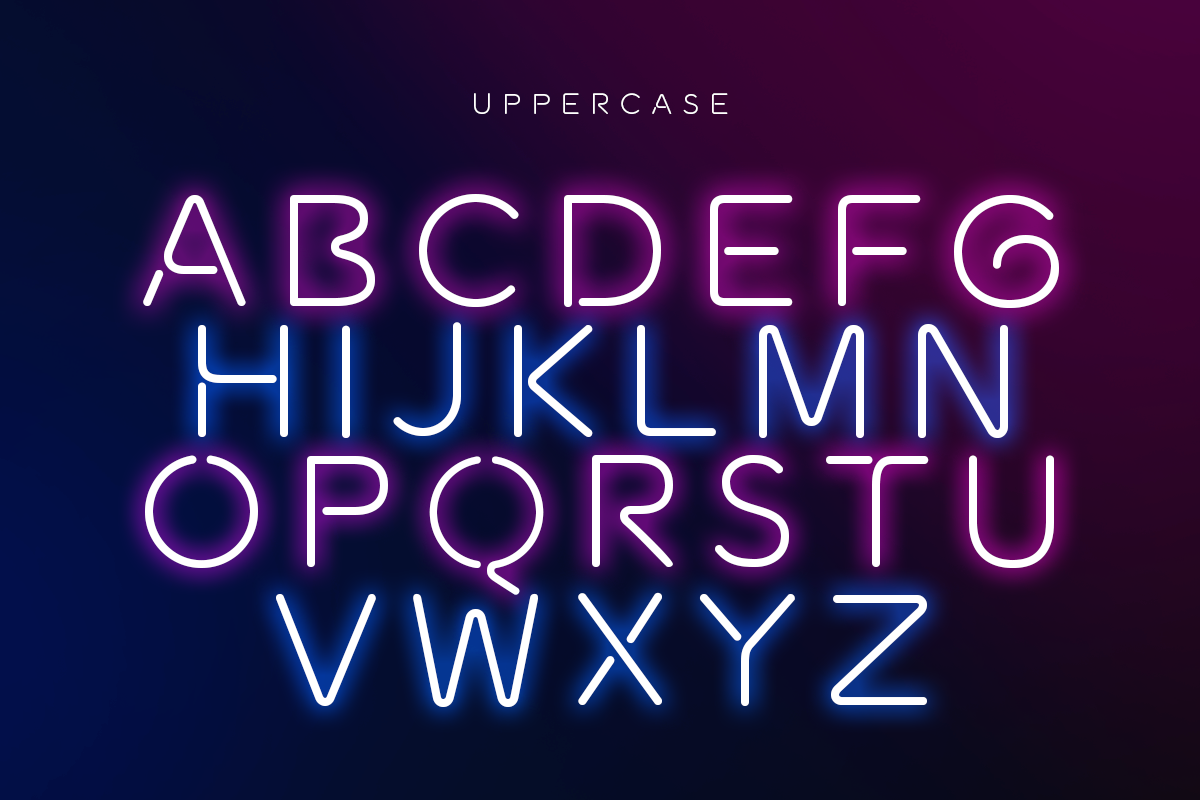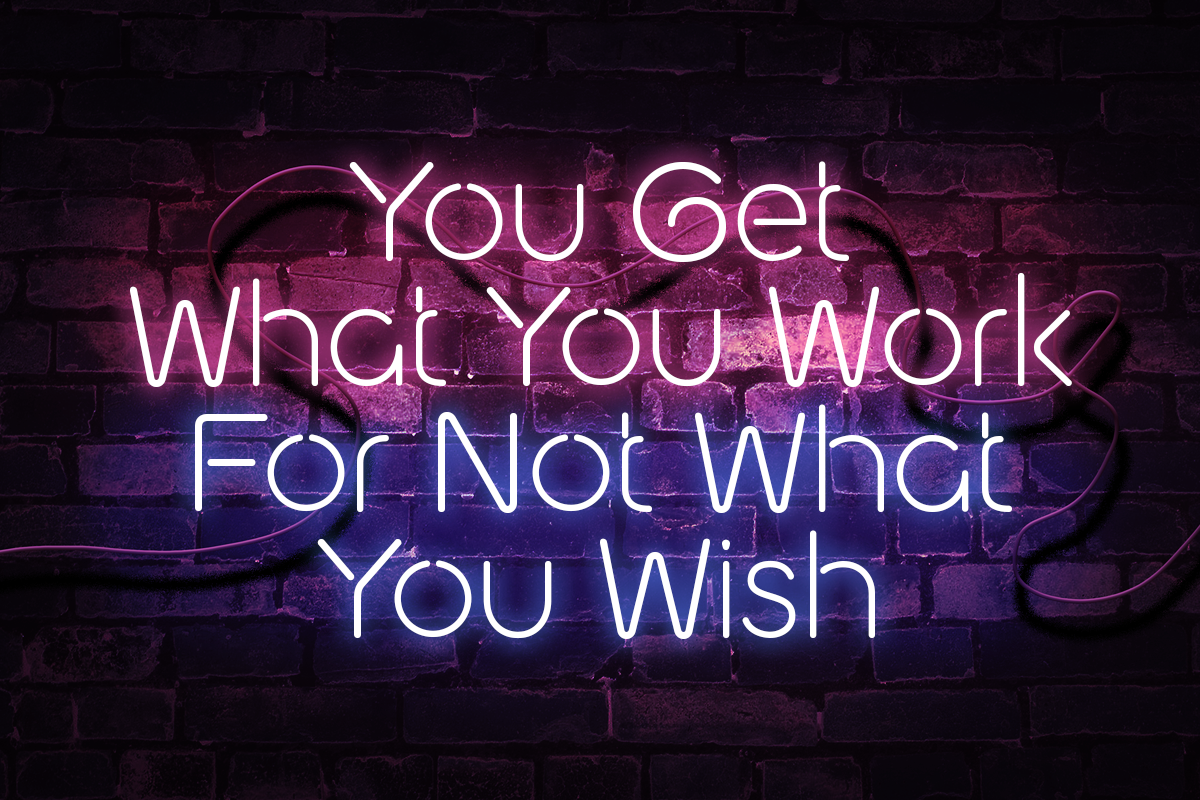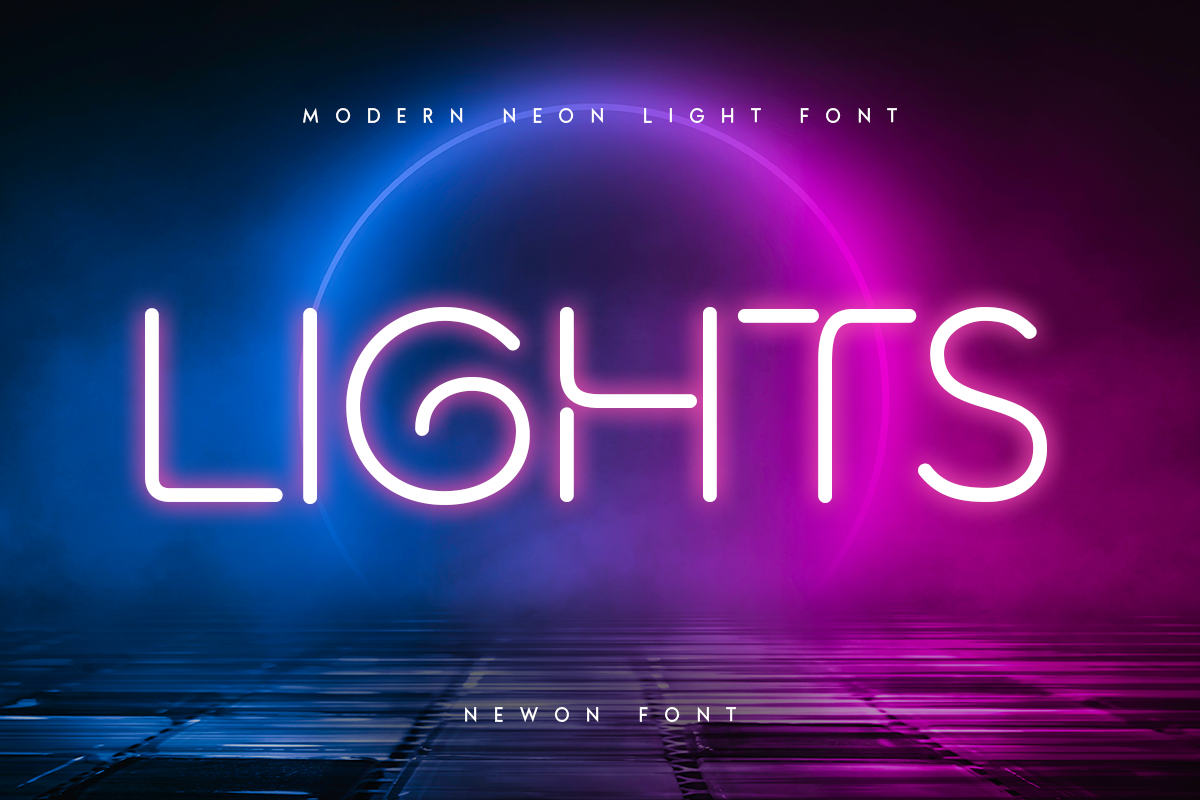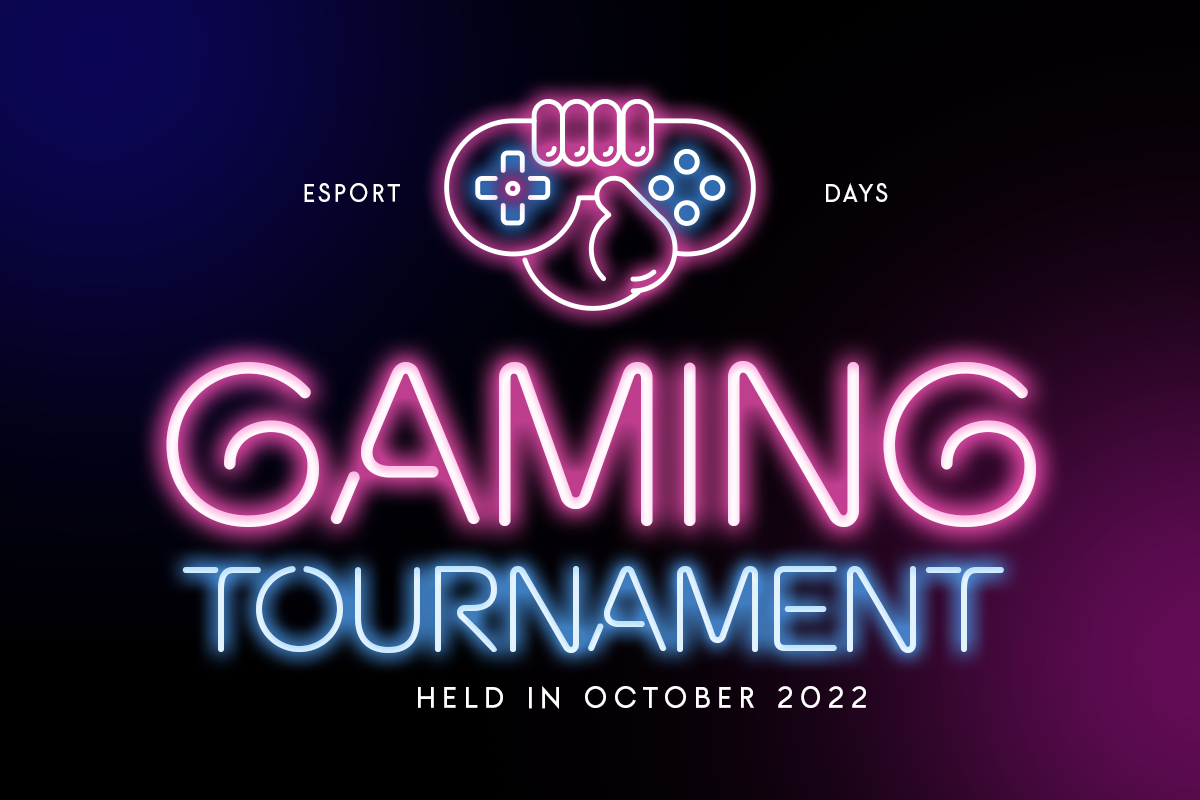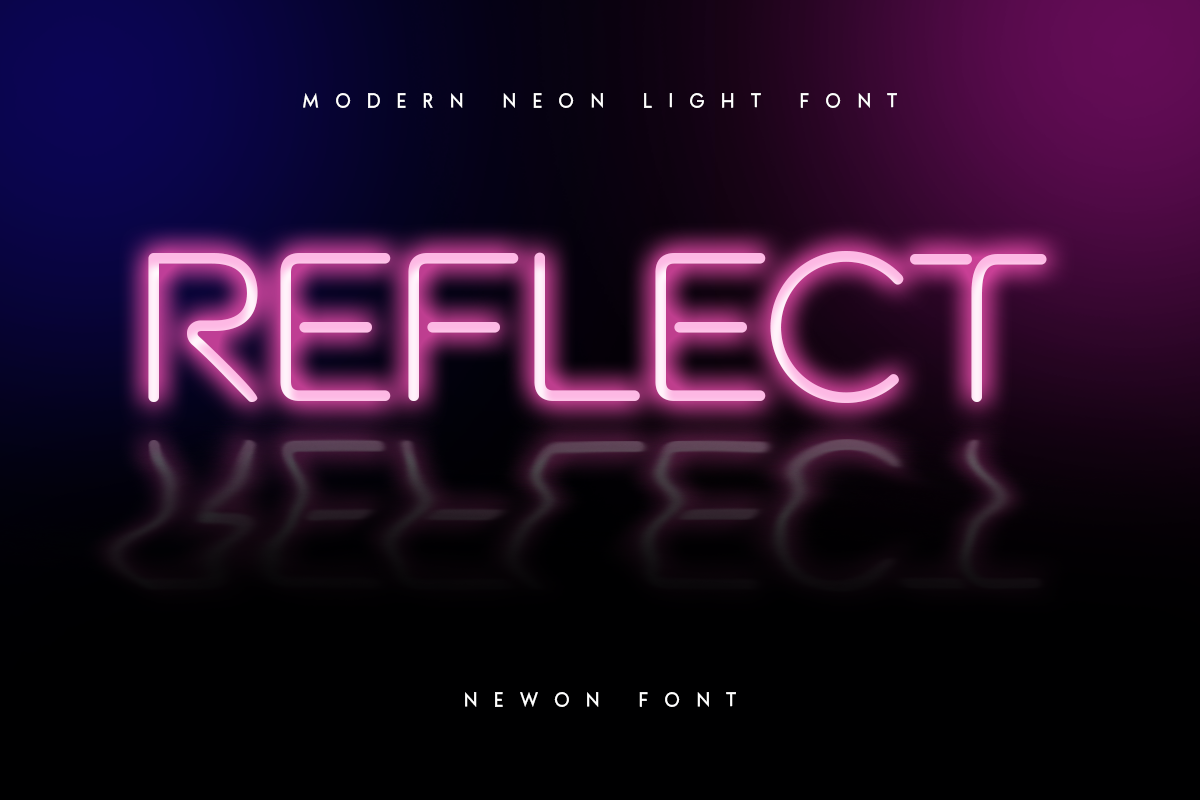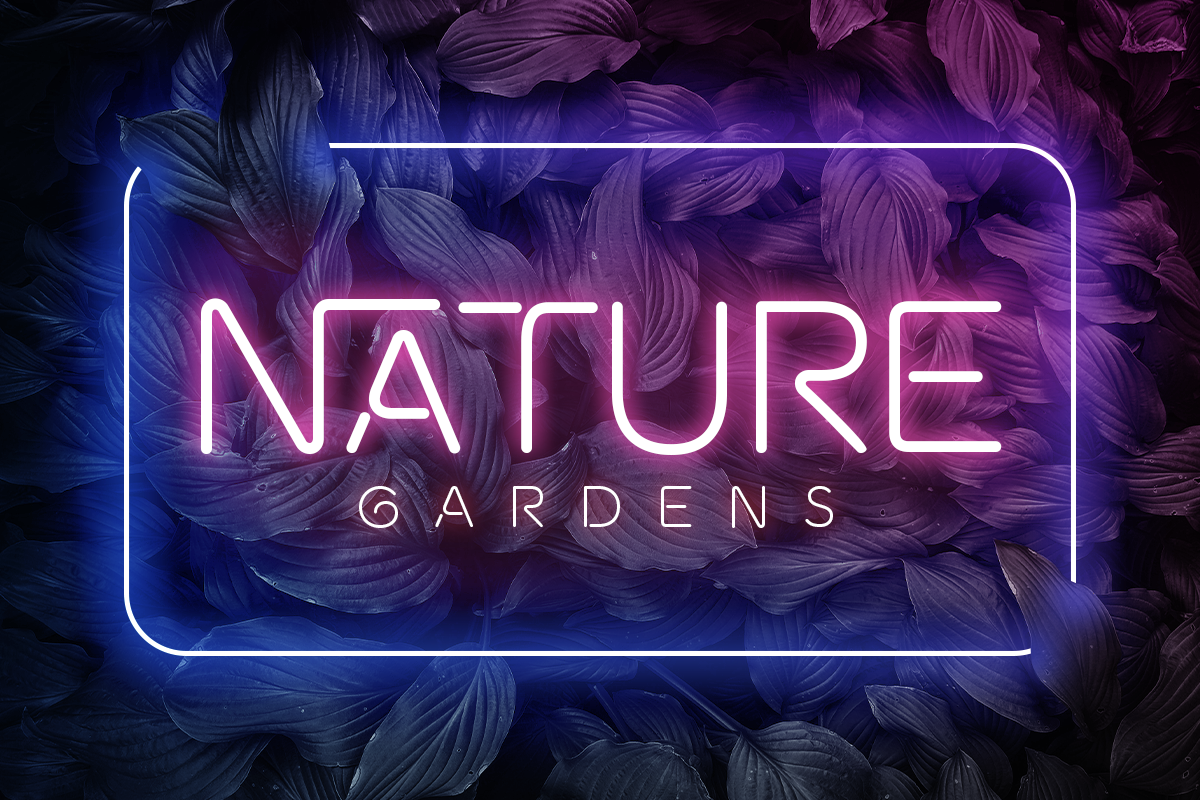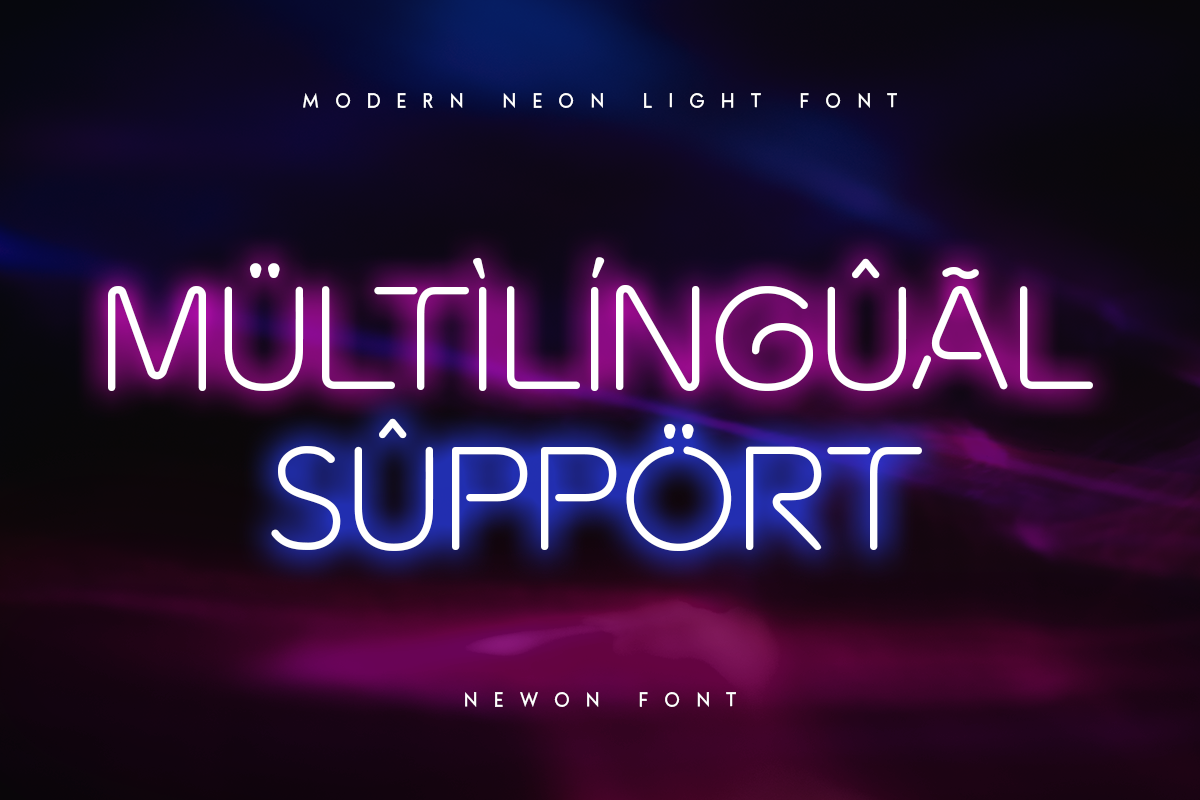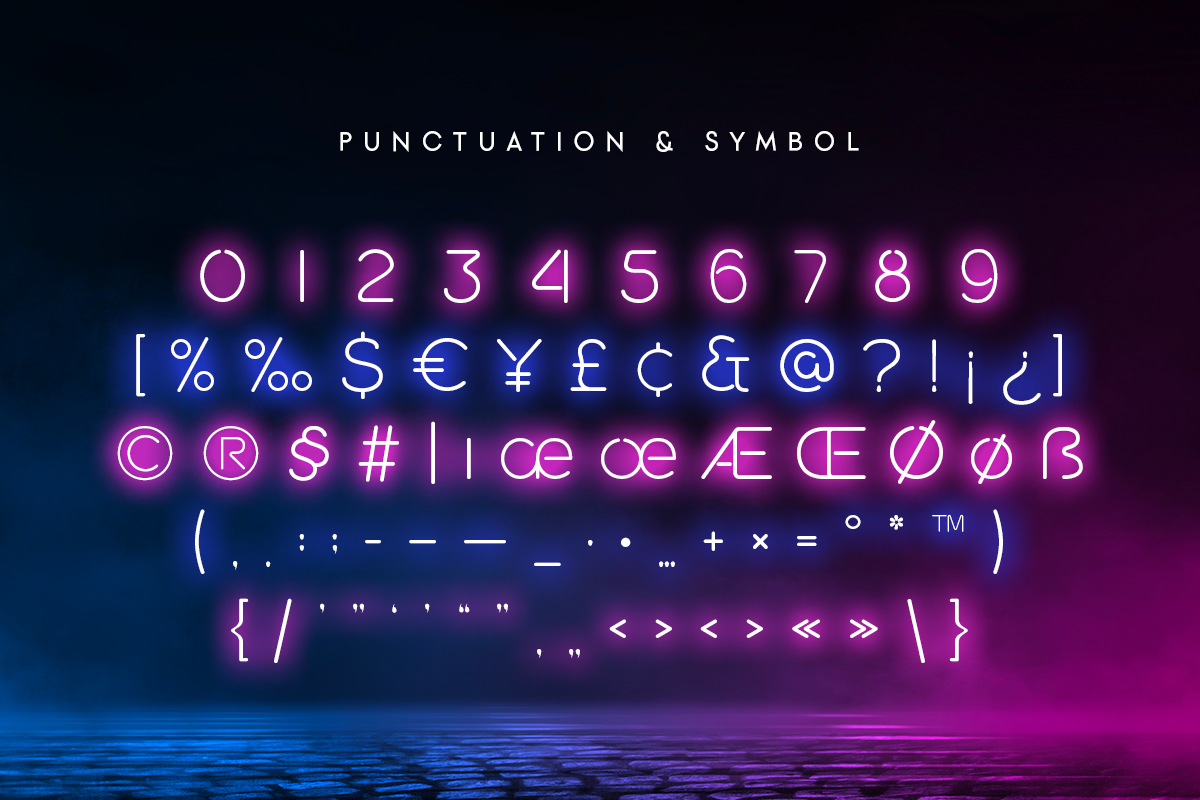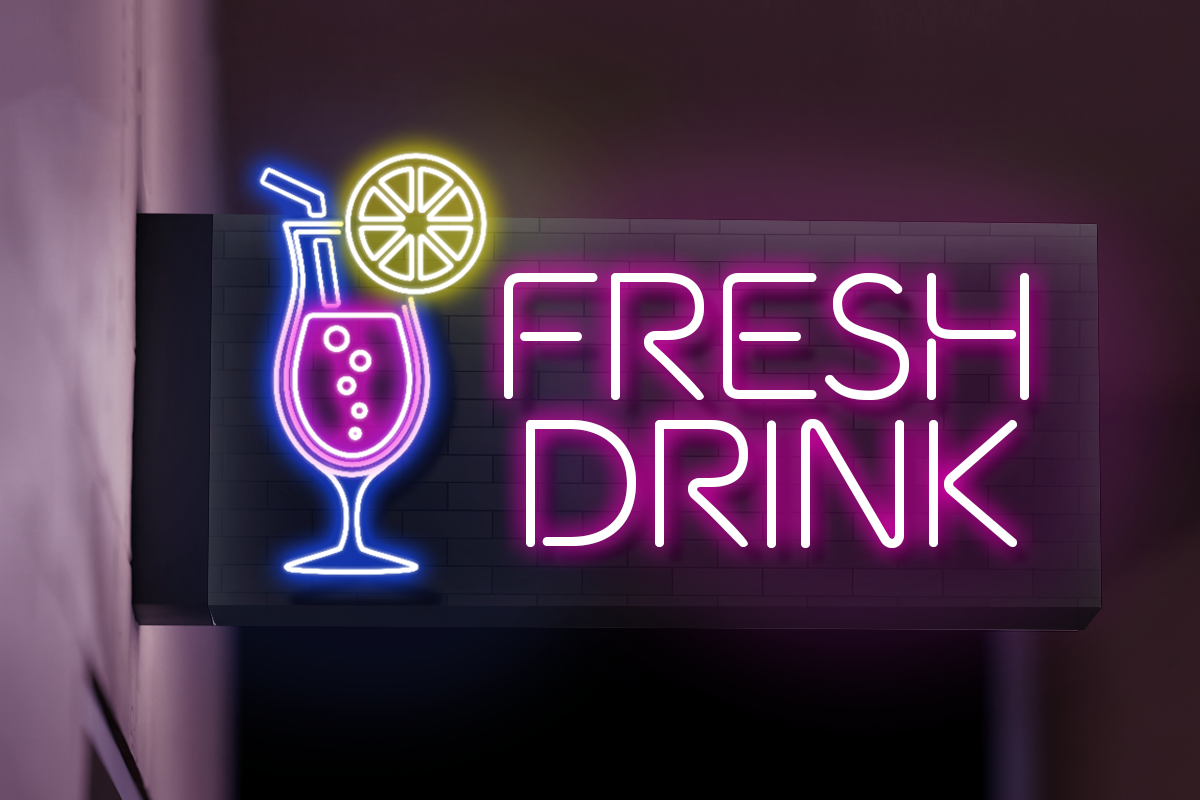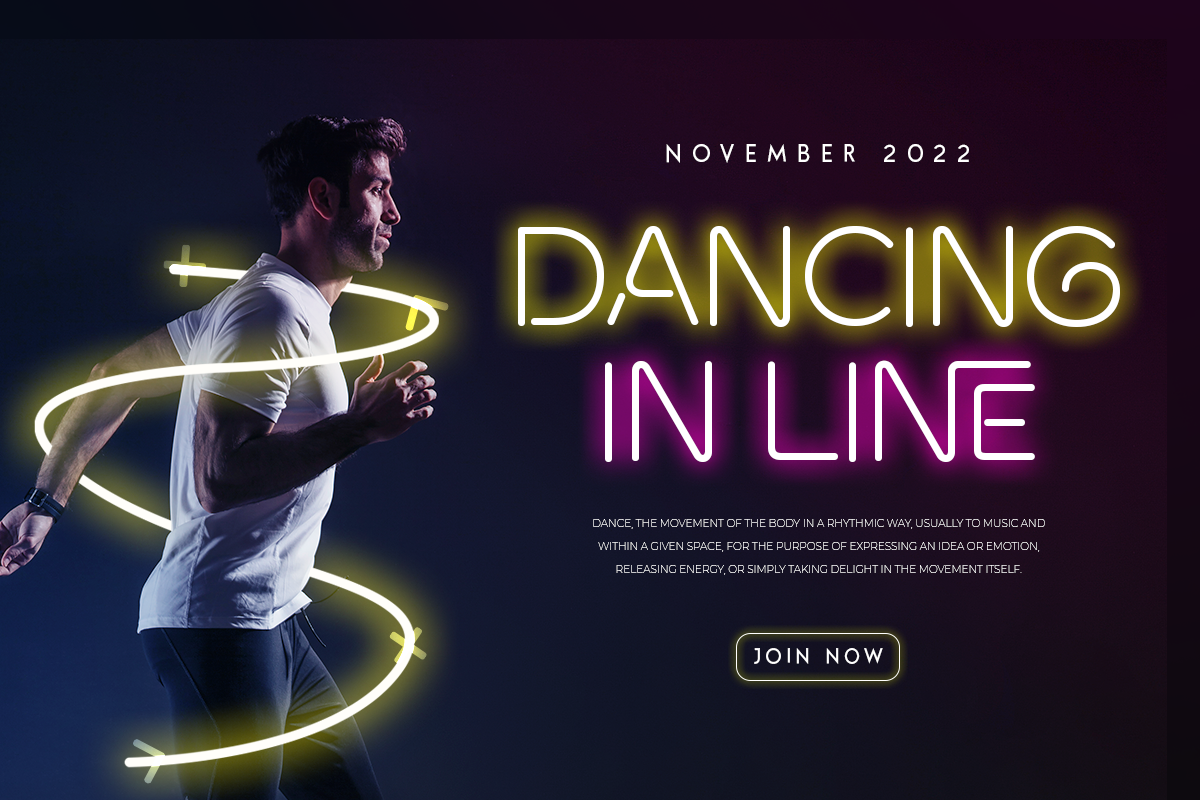
Newon - Modern Neon Light Font
Newon is an Unique Neon Light Font with Floating shape make your design look unique and modern
A new Display Font that we created special for Headline, Title and more stand out typography needs, with extra ligature that will add your variations. It's so perfect to add your style and headline overview. And specially for this font, we crafted for unique style and modern feels so enjoy to create any project that will show your main idea out.
Newon Neon Light Font ready with:
- Any options to get creative variations (combination of Ligature Characters)
- Preview as a inspirations that you can do with this font
- Ready with Uppercase & Lowercase characters